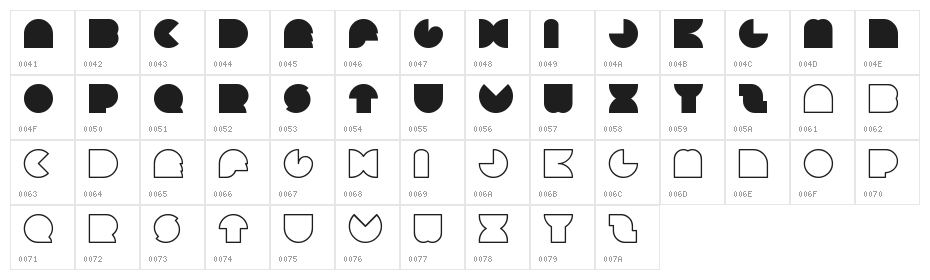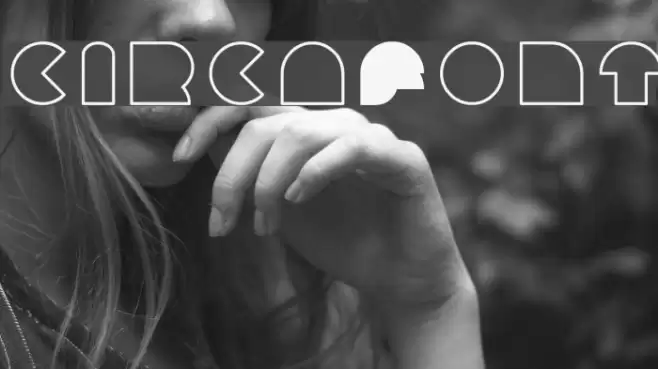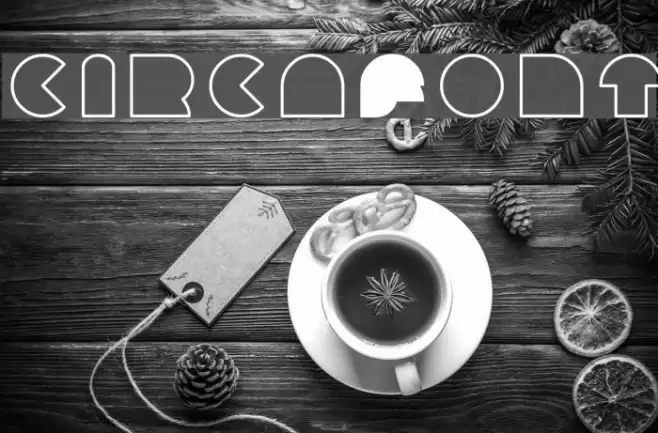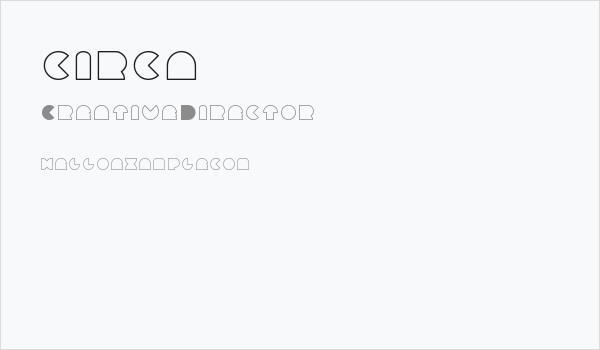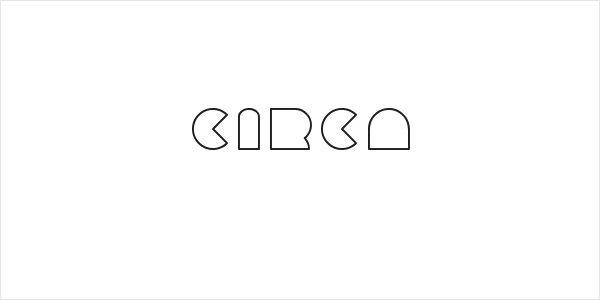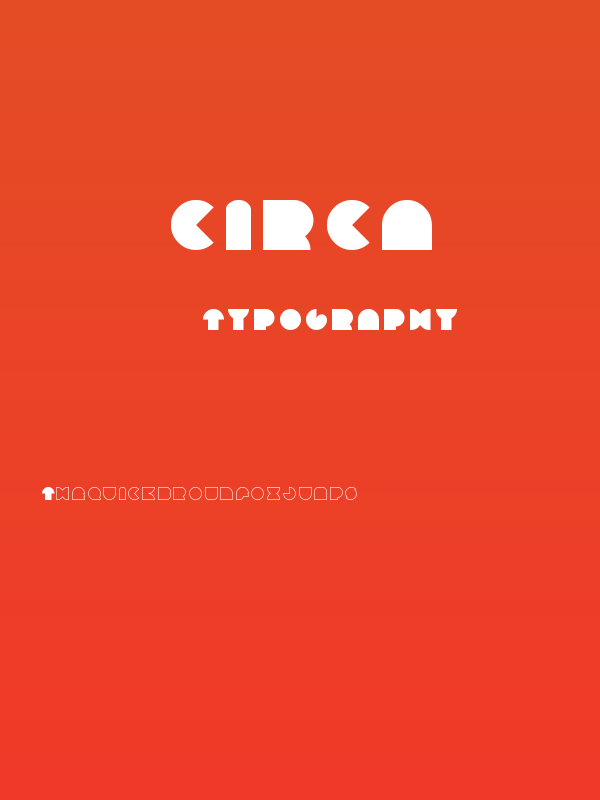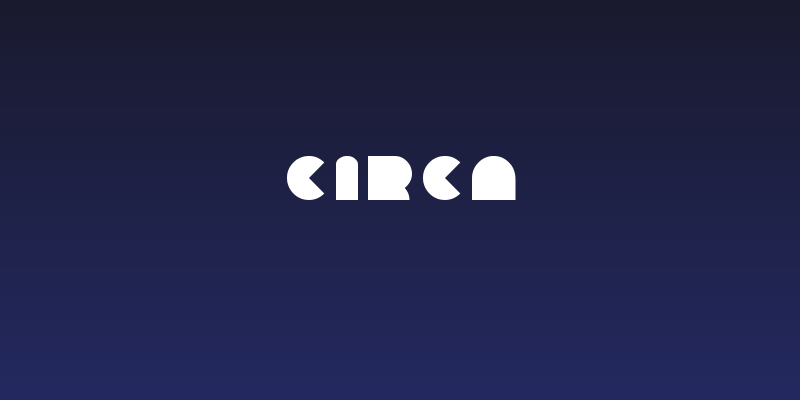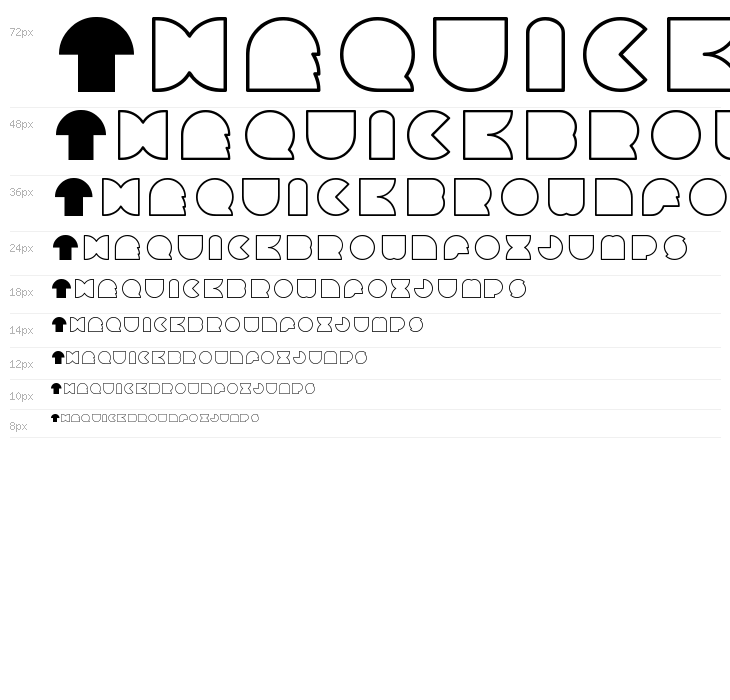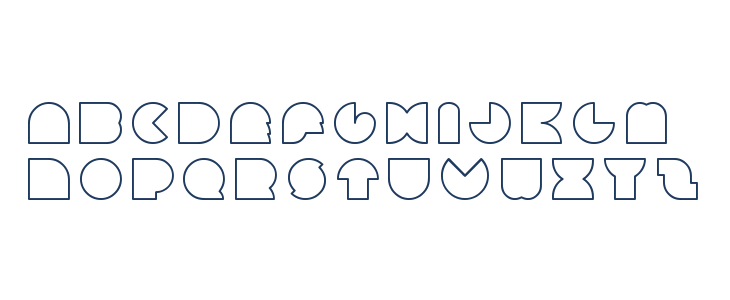
circa Font
circa Description
This font features a bold, geometric style with a strong emphasis on circular and angular shapes. The uppercase letters are characterized by their solid, block-like appearance, while the lowercase letters maintain a consistent geometric form. The font's design is modern and eye-catching, making it suitable for display purposes. The characters are evenly spaced, providing a balanced and cohesive look. The bold weight and high contrast between the thick strokes and the negative space create a striking visual impact. This font is ideal for projects that require a contemporary and artistic touch.
| Proposed Projects | Ideal for branding, posters, headlines, and any project needing a modern, artistic flair. |